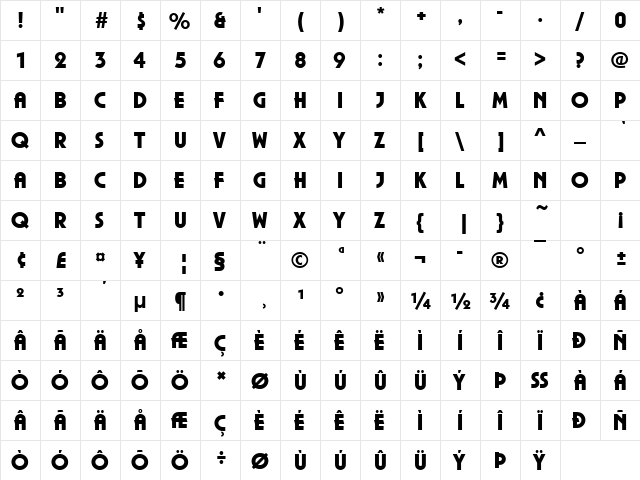
URWPlenaDUlt Regular
Design Context for URWPlenaDUlt Typeface
URWPlenaDUlt offers clean, dependable letterforms without strong stylistic allegiance, making it a practical choice for designers who need flexibility.